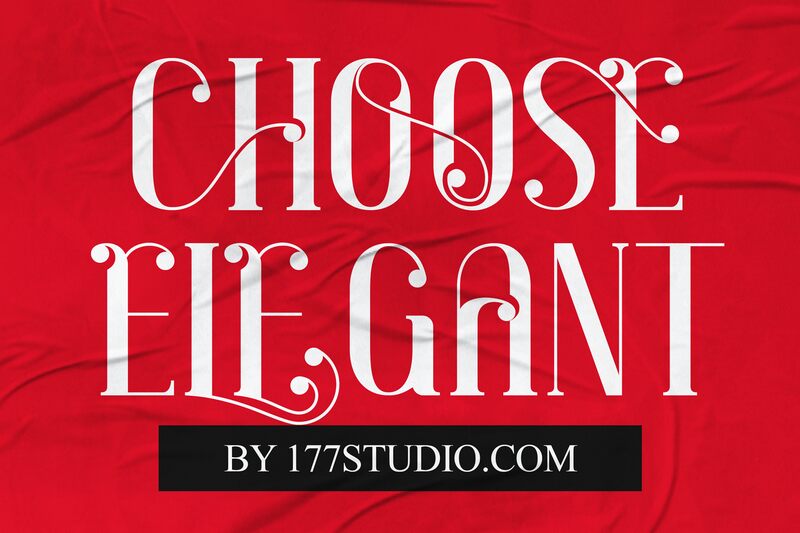
Choose Elegant, a retro display font designed by 177Studio, adds a touch of elegance to any project. With its semi-light weight and condensed width, this font is perfect for creating eye-catching headlines, vintage logos, and stylish packaging designs. Whether you're working on a fashion magazine layout, a classic movie poster, or an art deco-inspired website, Choose Elegant will bring a sense of sophistication and nostalgia to your project. Stand out from the crowd and let this font take your designs to new heights of elegance and style.